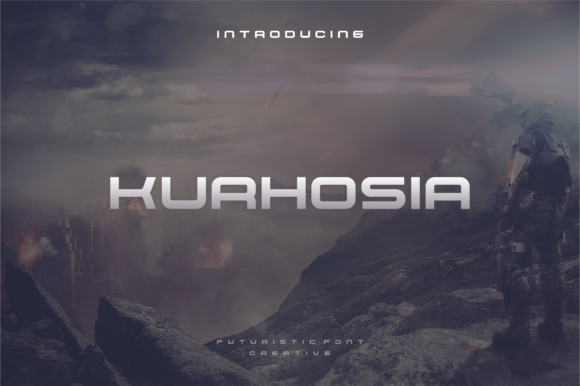
Kurhosia Font
Introducing Kurhosia Font, the display font that will revolutionize your digital presence. This modern, elegant, and futuristic typeface is the epitome of sophistication and style.
Crafted by the visionary minds at Garismantra, Kurhosia Font is meticulously designed to elevate your designs to new heights. Its clean lines and sharp angles evoke a sense of innovation and progress, making it the perfect choice for cutting-edge web designs, forward-thinking business cards, and any project that demands a touch of the extraordinary.
With Kurhosia Font, you'll unlock a world of creative possibilities. Its versatility knows no bounds, adapting seamlessly to a myriad of applications. Whether you're crafting eye-catching headlines, impactful logos, or captivating social media graphics, this font will empower you to make a lasting impression.
Indulge in the allure of Kurhosia Font and witness the transformation of your designs. Its timeless beauty will captivate your audience, leaving an unforgettable mark on their minds. Embrace the future of typography and elevate your creations to unparalleled heights with Kurhosia Font.